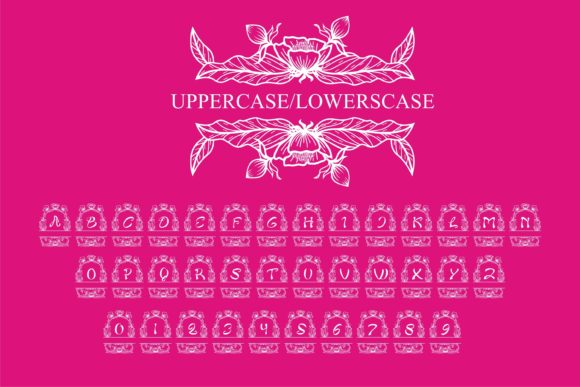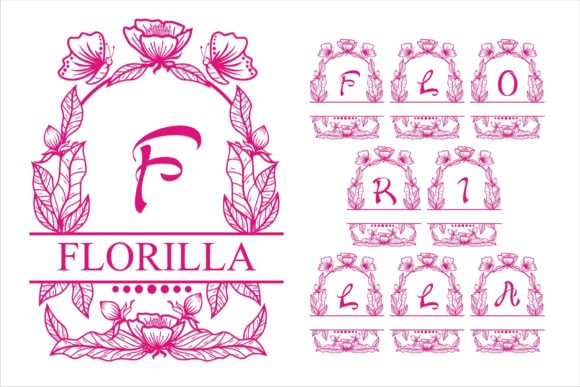
Introducing Florista Fista III Monogram Font: Elevate Your Designs with a Touch of Elegance
Are you a designer or crafter looking for a unique and beautiful font to add a touch of elegance to your projects? Look no further than the Florista Fista III Monogram Font. This stunning decorative font features a beautiful sunflower decoration theme, complete with floral ornaments and plants that make it perfect for a variety of design applications.
A Beautiful and Versatile Font
Florilla Fista III is a decorative font that is sure to brighten up any design. Its chic and jolly style makes it perfect for a wide range of projects, from invitations and business cards to book cover designs and other materials. With its beautiful sunflower theme and floral ornaments, this font is sure to add a touch of elegance and sophistication to any design.
Whether you’re a professional designer or a crafter looking to add a personal touch to your projects, the Florista Fista III Monogram Font is a great choice. Its unique and beautiful style makes it perfect for a variety of design applications, including:
- Invitations: Add a touch of elegance to your wedding invitations, birthday party invites, and other special occasion designs.
- Business Cards: Stand out from the crowd with a beautiful and professional business card design.
- Book Cover Designs: Add a touch of sophistication to your book covers and make them stand out on the shelves.
- Stationery: Add a personal touch to your stationery and make it perfect for special occasions.
Why Choose Florista Fista III?
There are many reasons why Florista Fista III Monogram Font is a great choice for designers and crafters. Here are just a few:
- Unique and Beautiful Style: The Florista Fista III font features a unique and beautiful sunflower theme that is sure to add a touch of elegance to any design.
- Versatile: This font is perfect for a wide range of design applications, from invitations and business cards to book cover designs and other materials.
- High-Quality: This font is high-quality and comes with a range of characters and symbols, making it perfect for a variety of design applications.
In conclusion, the Florista Fista III Monogram Font is a beautiful and versatile font that is perfect for designers and crafters. Its unique and beautiful sunflower theme, complete with floral ornaments and plants, makes it perfect for a variety of design applications. With its ease of use, high-quality, and range of characters and symbols, this font is sure to add a touch of elegance and sophistication to any design. So why wait? Download the Florista Fista III Monogram Font today and start creating beautiful designs that will stand out from the crowd.
Add it confidently to your projects, and you will love the results. The Florista Fista III Monogram Font is a great addition to any design collection, and it’s sure to be a favorite among designers and crafters. So go ahead, get creative, and make your designs shine with the Florista Fista III Monogram Font.